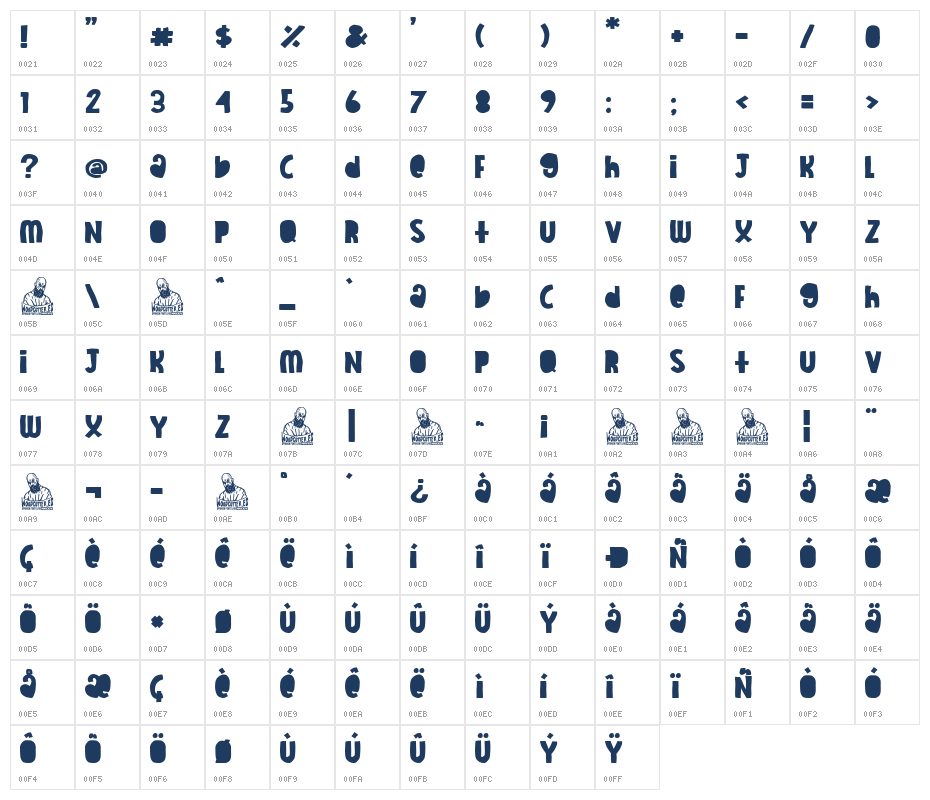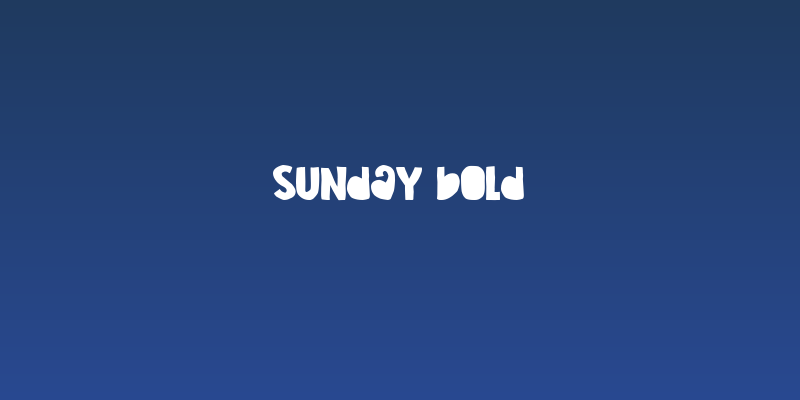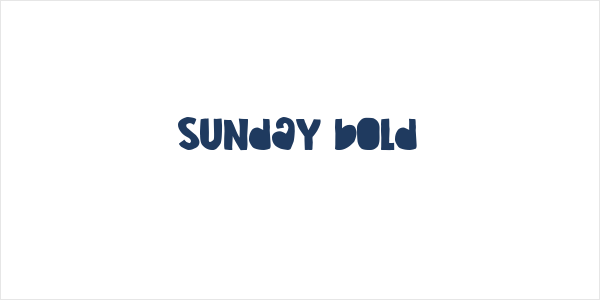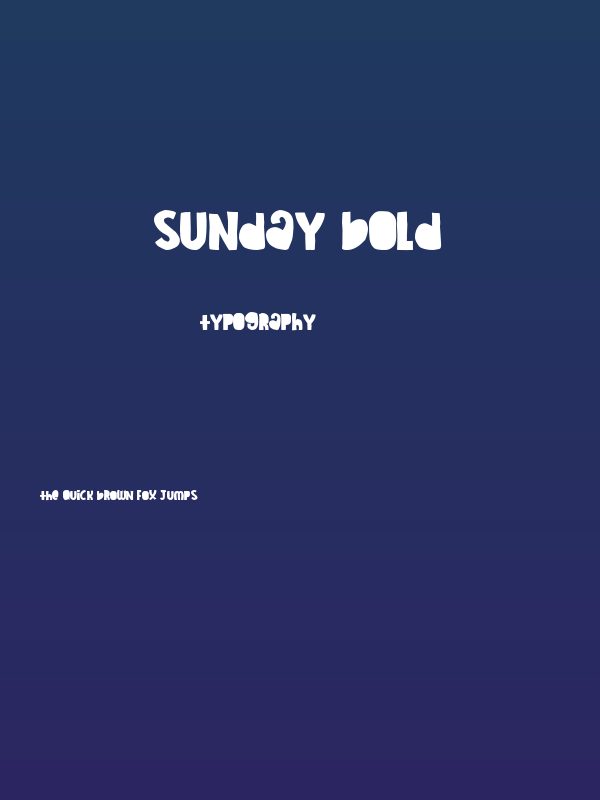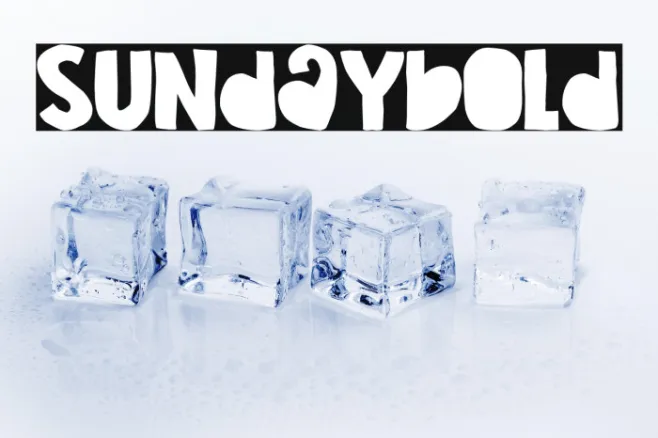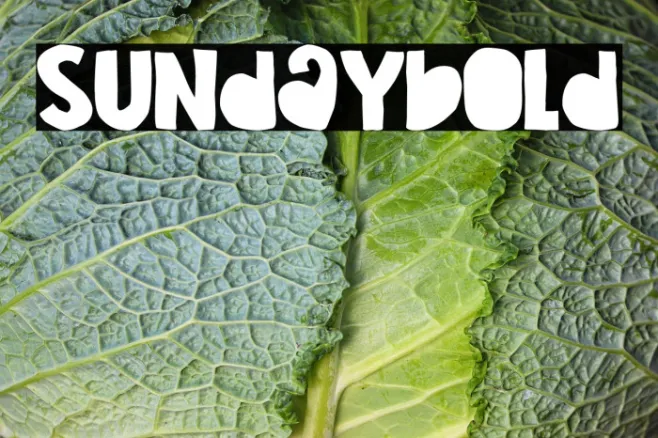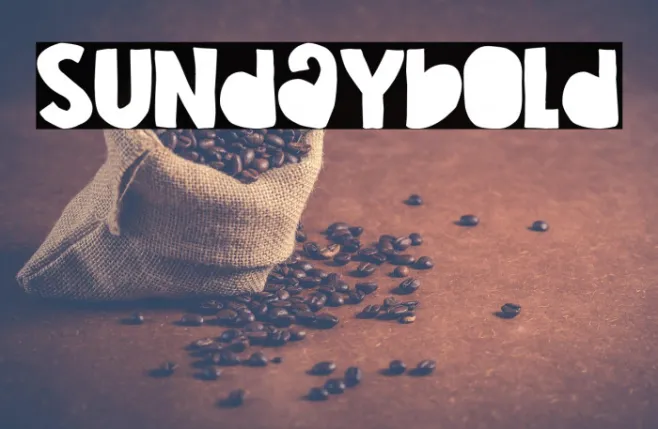
Sunday Bold Font
Sunday Bold Description
Bold, playful, and chunky display font with irregular, rounded shapes.
| Overall Style | Playful, Bold, Retro |
| Use Case | Headlines, Posters, Logos, Children's products |